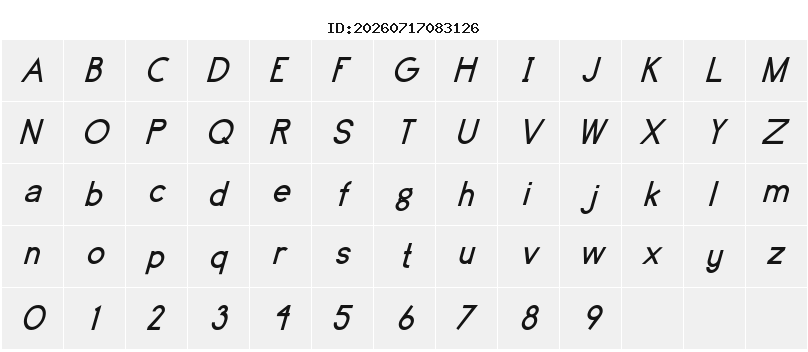
Brassfield-Ital Preview
• Font Name: Brassfield-Ital
• Full Font Name: Brassfield-Ital
About Brassfield-Ital.ttf
Brassfield-Ital.ttf is a modern, elegant sans-serif font designed for ultimate readability and visual harmony. Perfect for branding, headlines, web design, and print materials.